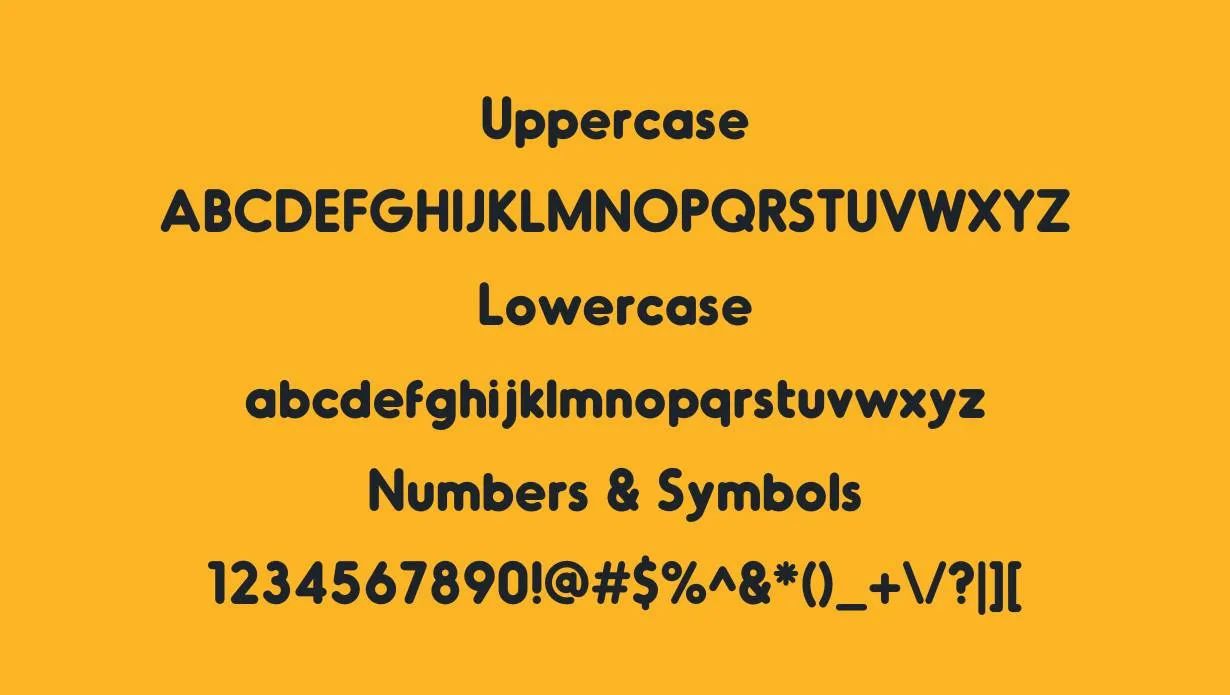
Oduda Rounded Font offers a clean and modern design with a friendly and approachable appearance.
It’s suitable for web design, advertising, and branding where a contemporary and welcoming look is desired.
Oduda Rounded Font Family